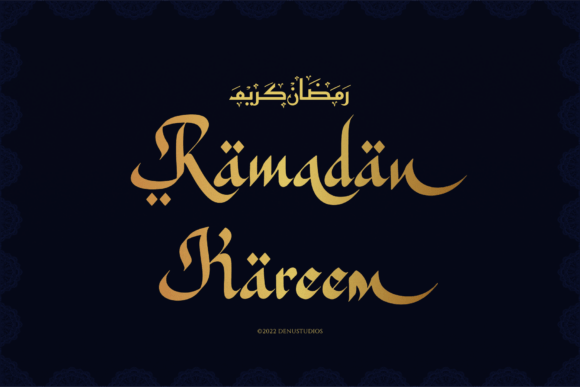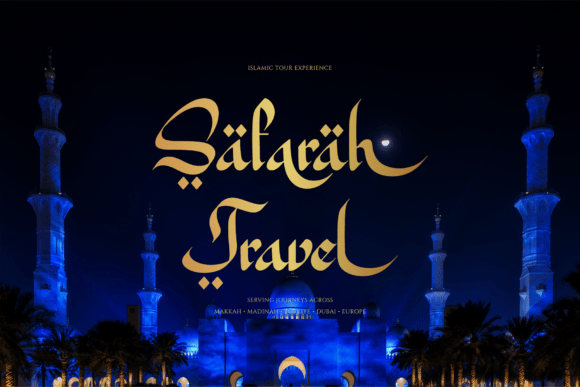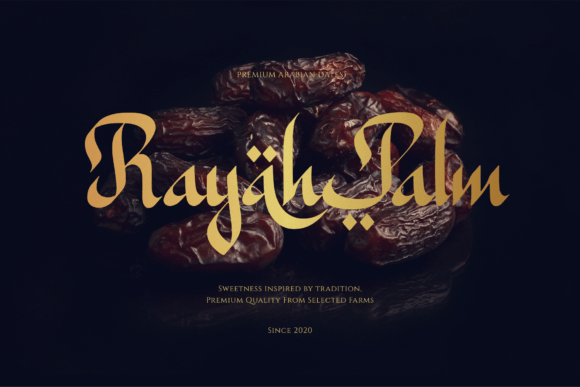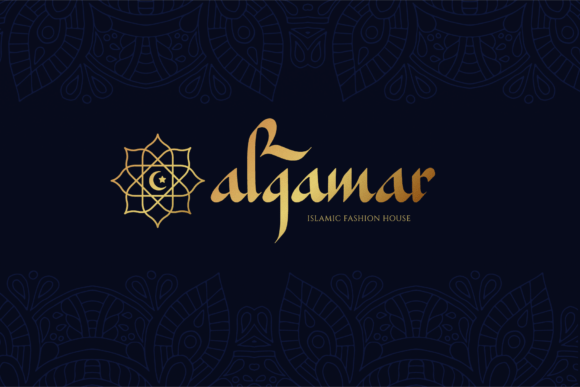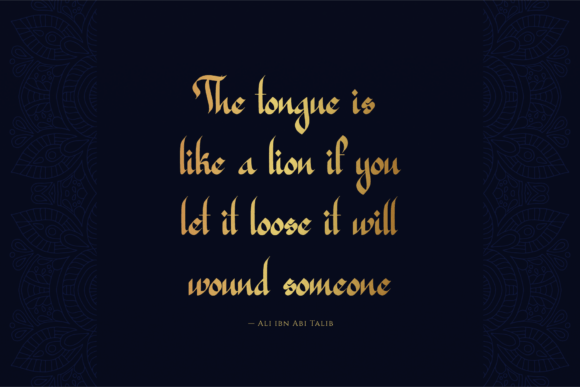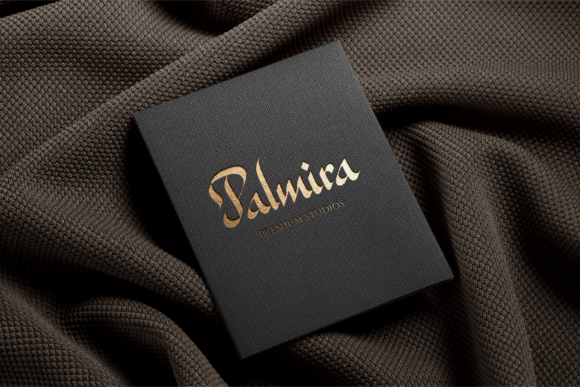
Unlocking the Essence of Middle Eastern Luxury
Imagine you’re strolling through the bustling souks of Marrakech, surrounded by vibrant colors, intricate patterns, and the sweet scent of exotic spices. As you wander, your eyes land on a stunning display of calligraphy, adorned with delicate flourishes and elegant curves. This is the moment when the Arabian Mandala Font comes alive, transporting your designs to the majestic world of Middle Eastern luxury.
As a designer, you’re always on the lookout for the perfect font to elevate your creations. That’s where the Arabian Mandala Font comes in – a unique blend of European blackletter calligraphy and classic Arabic script, perfect for crafting high-end titles and luxury branding. With its rich cultural heritage and opulent aesthetic, this font is a valuable addition to any designer’s toolkit, allowing you to bring a touch of exotic luxury to your digital layouts.
Arabian Mandala Font Key Features
- Unique Characteristics: The font features intricate, hand-drawn designs inspired by traditional Arabic calligraphy, with unique ornaments and flourishes that add an artistic touch to any design.
Designer Review: Arabian Mandala Font
I recently had the chance to work with the Arabian Mandala Font, and I have to say, it’s a unique and intriguing typeface. ✨ The intricate details and ornate patterns truly bring a touch of Middle Eastern elegance to any design. The font is perfect for creating visually stunning and immersive experiences, especially for projects that require a sense of mysticism or luxury.
- The font’s intricate details and patterns are a standout feature, making it perfect for adding a touch of sophistication to designs.
- The font is highly versatile and can be used in a variety of contexts, from fashion and lifestyle to spiritual and cultural designs.
- The font’s high level of customization allows designers to tailor the look and feel to suit their specific needs.
While the Arabian Mandala Font is a beautiful and unique typeface, it’s not without its limitations. ⚠️ One of the main drawbacks is that it can be quite busy and overwhelming, especially when used in large blocks of text. This can make it difficult to read and may require careful placement and design to avoid overwhelming the viewer.
Overall, I think the Arabian Mandala Font is a great choice for designers who want to add a touch of exotic elegance to their projects. With careful use and placement, it can truly elevate a design and create a memorable experience for the viewer.
The Arabian Mandala Font is ideal for:
1. Middle Eastern-inspired designs and branding.
2. Creating a sense of luxury and sophistication.
3. Adding a touch of cultural flair to your designs.